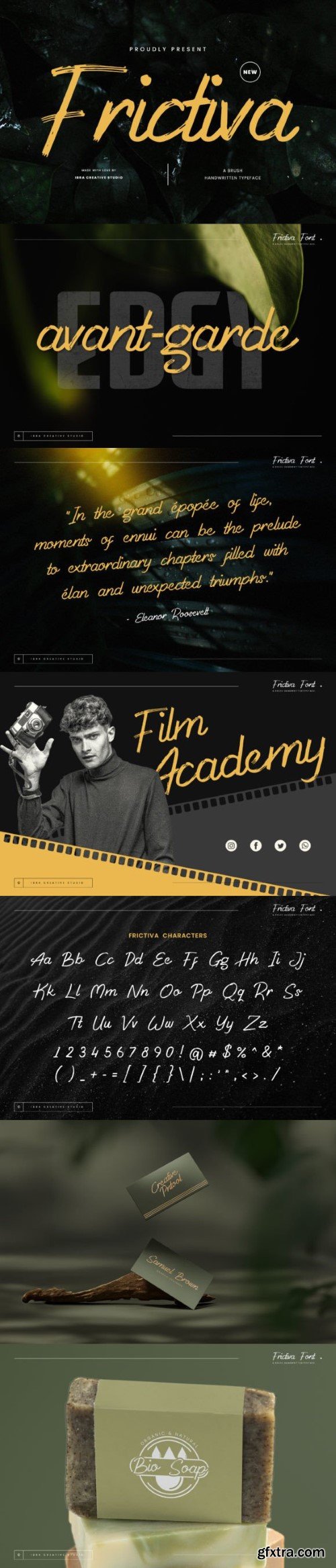
弗里克提凡字体
Frictiva is a captivating brush handwritten typeface that exudes a delightful blend of spontaneity and elegance. With each character meticulously crafted to emulate the organic strokes of a hand-drawn brush, Frictiva brings a distinctive and playful charm to any design project. The typeface seamlessly balances a sense of casual fluidity with a refined aesthetic, making it versatile for a wide range of creative applications.